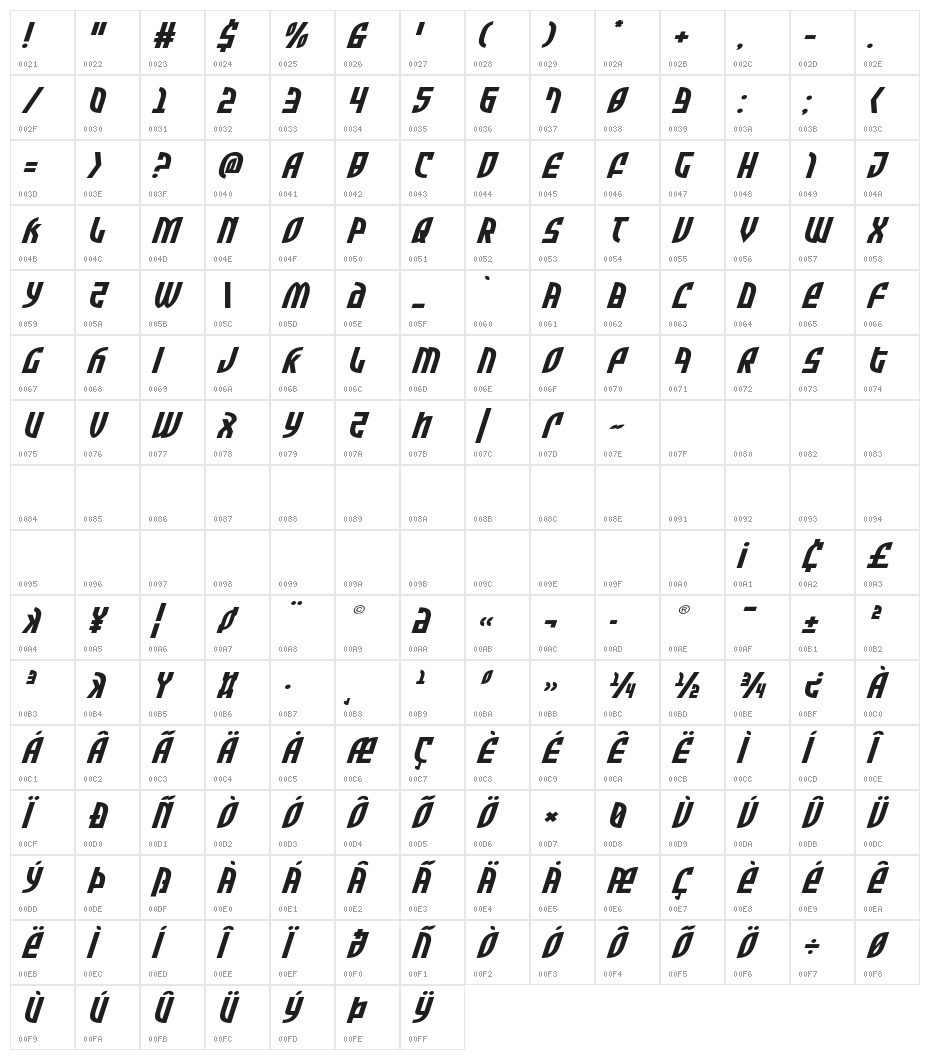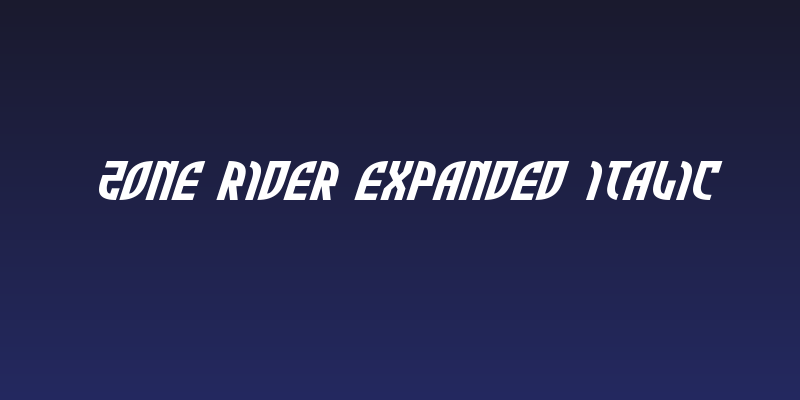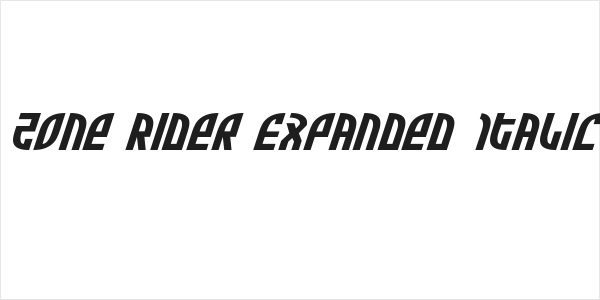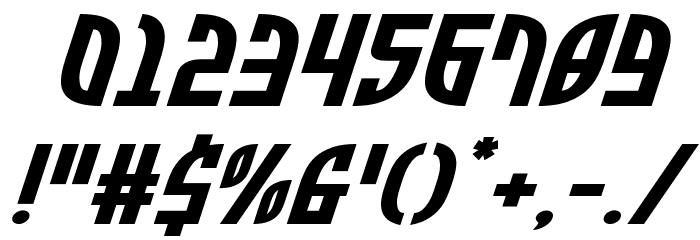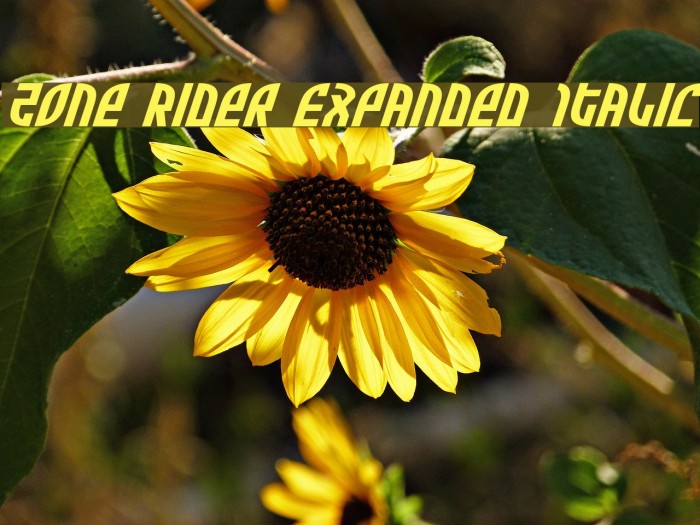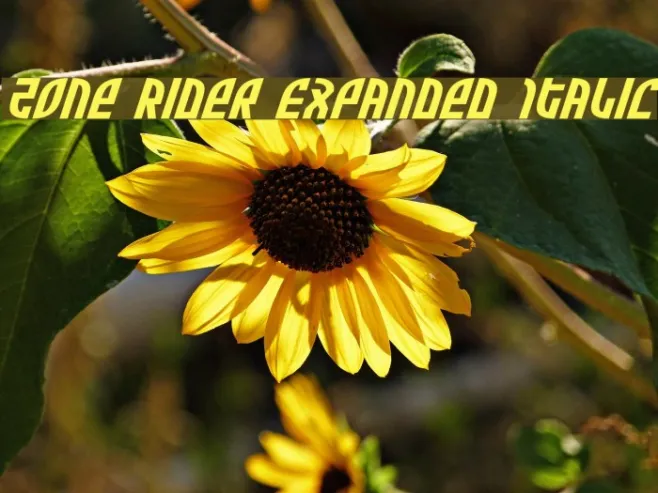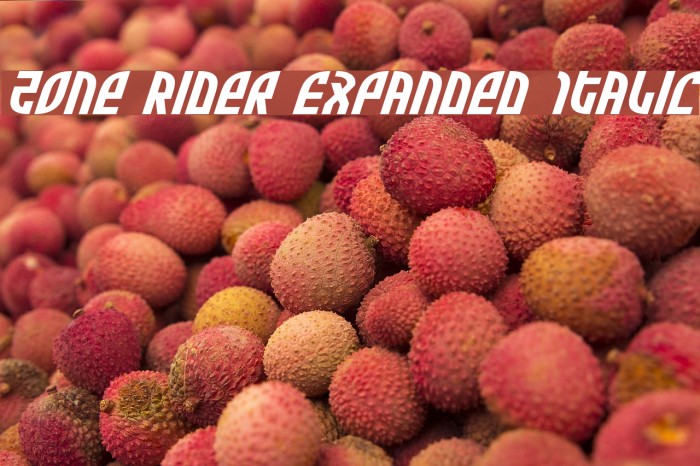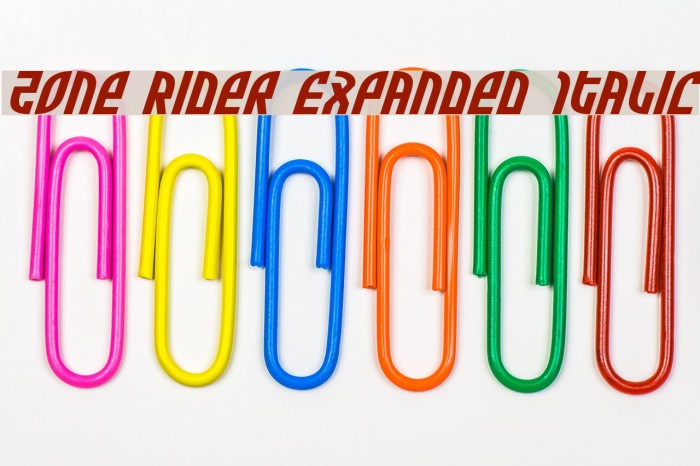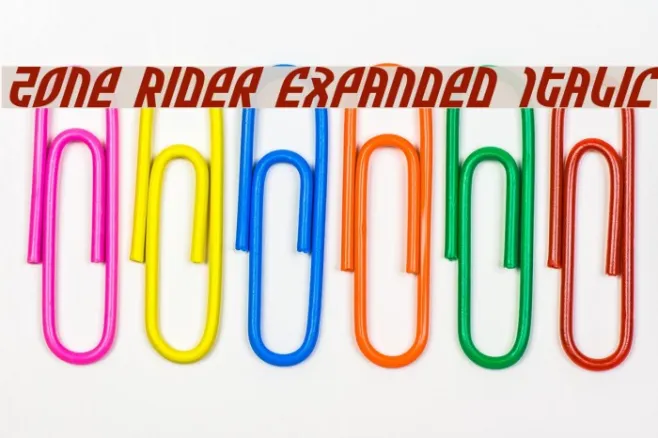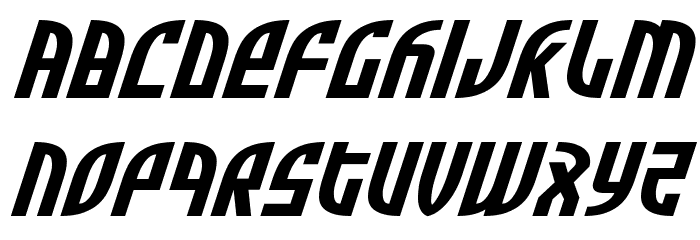
Zone Rider Expanded Italic Font
Zone Rider Expanded Italic Description
This font exhibits a bold and dynamic style with an italicized slant, giving it a sense of motion and energy. The characters are expanded, providing a wide and impactful appearance. The strokes are thick and uniform, contributing to a strong visual presence. The angular and geometric design of the letters adds a modern and futuristic feel, making it suitable for attention-grabbing headlines and displays. The numbers and special characters maintain the same bold and italicized characteristics, ensuring consistency across all elements.